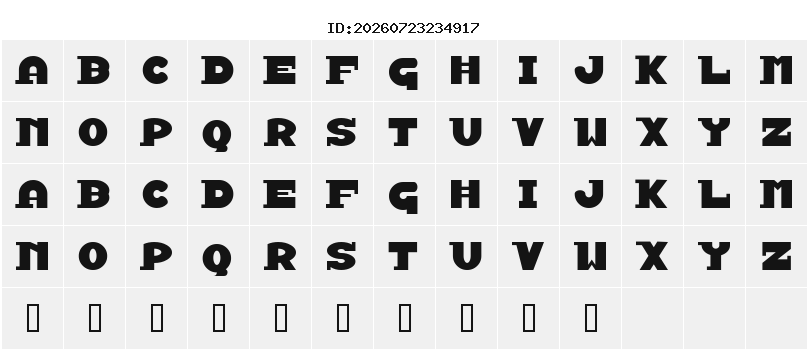
Experimenta Preview
• Font Name: Experimenta
• Full Font Name: Experimenta
• Character Count: 54
About Experimenta.ttf
Experimenta.ttf is a modern, elegant sans-serif font designed for ultimate readability and visual harmony. Perfect for branding, headlines, web design, and print materials.